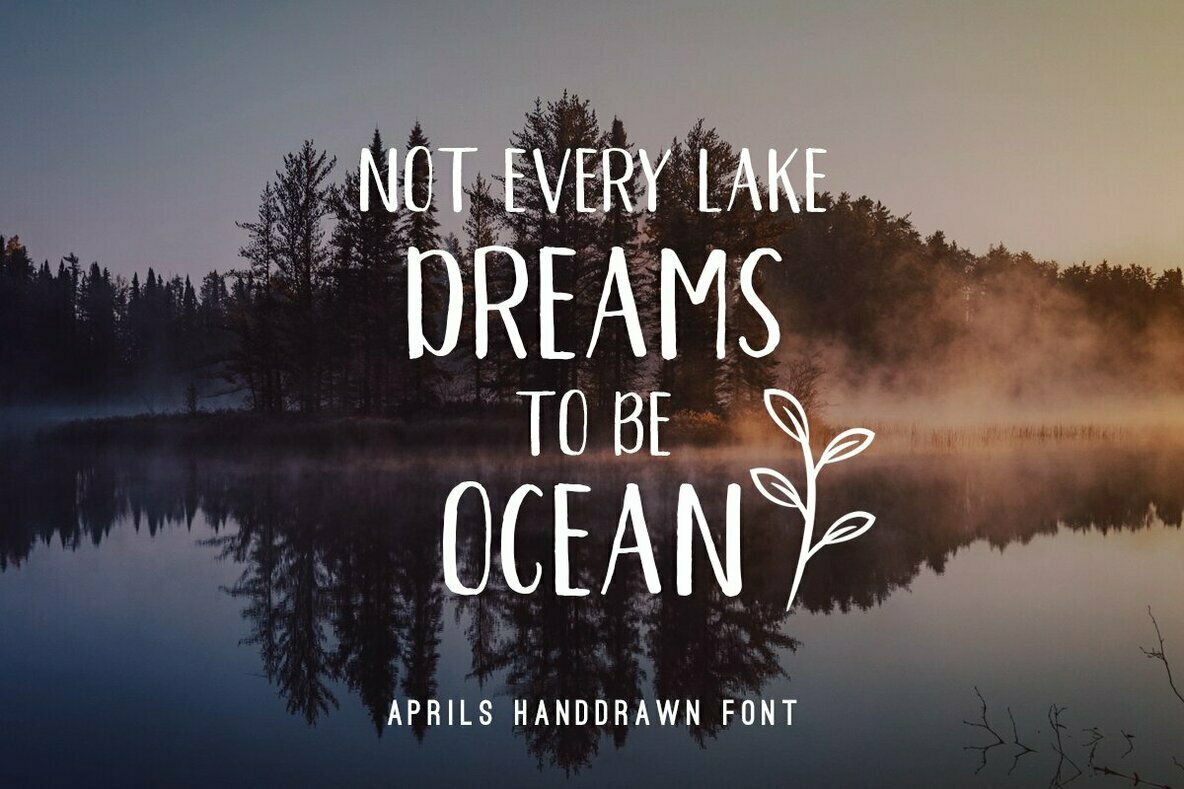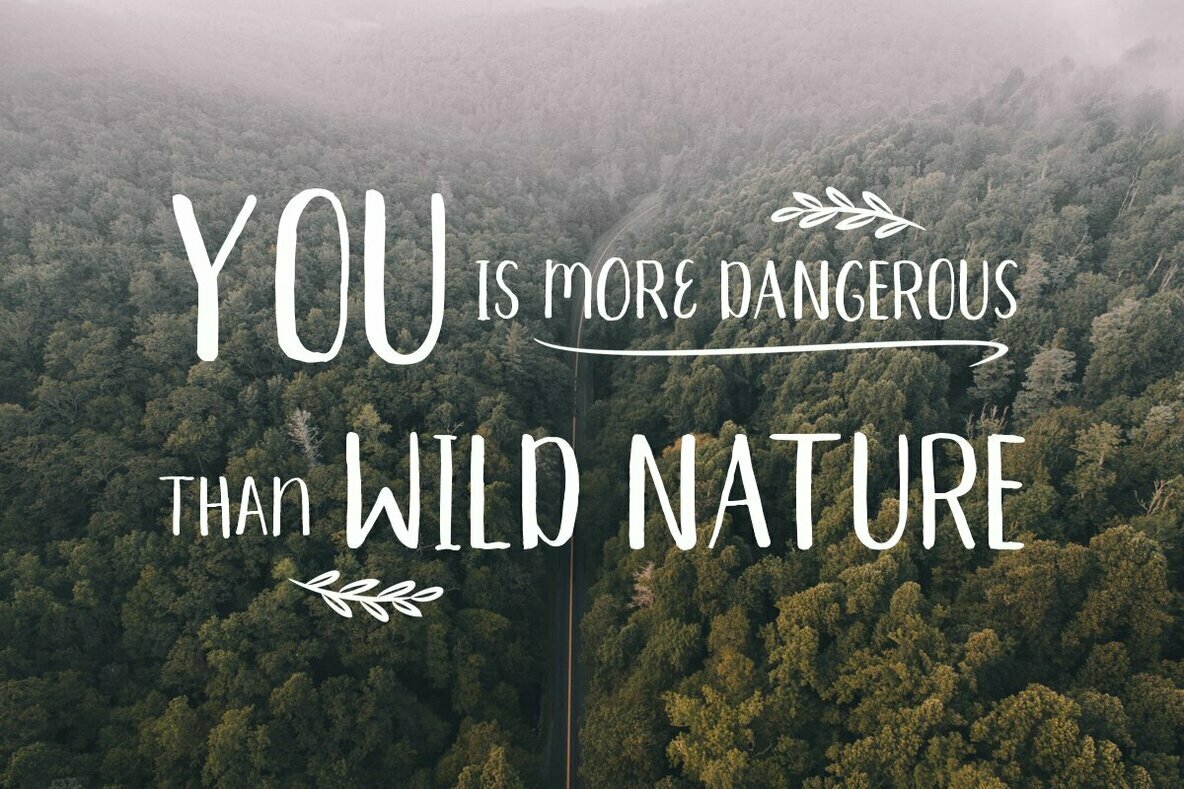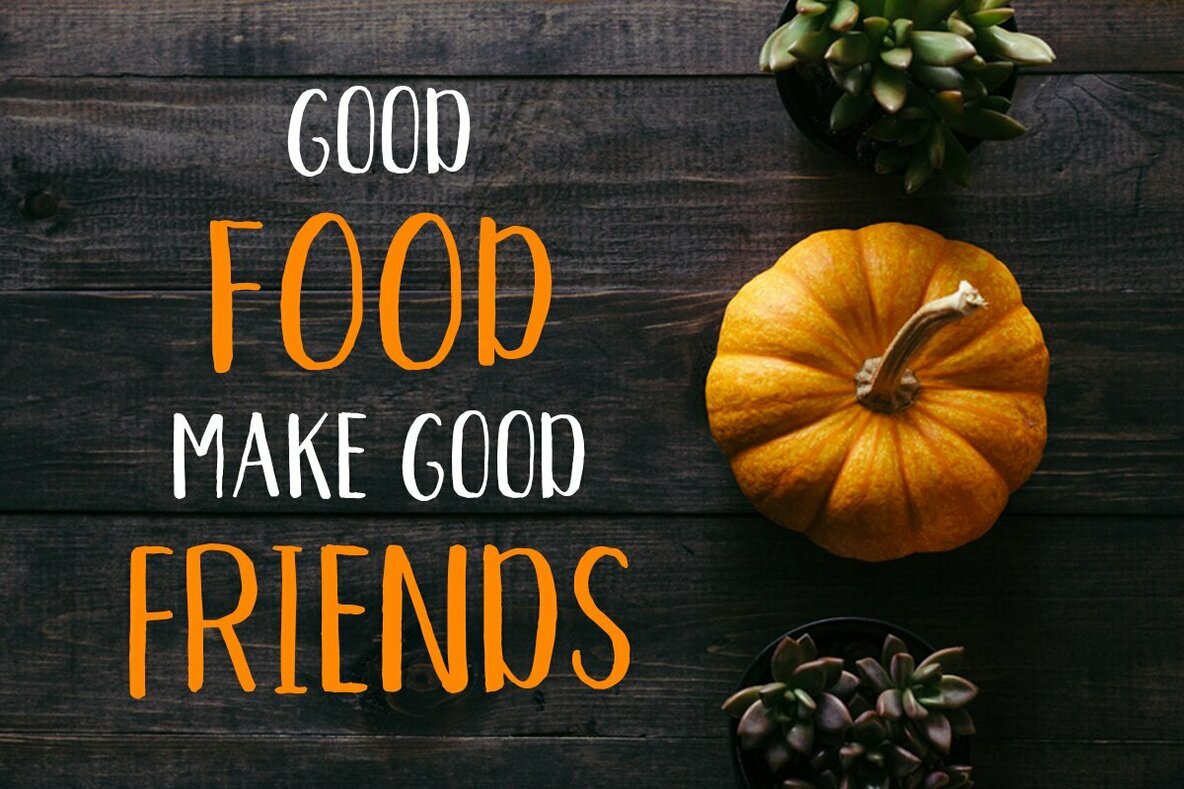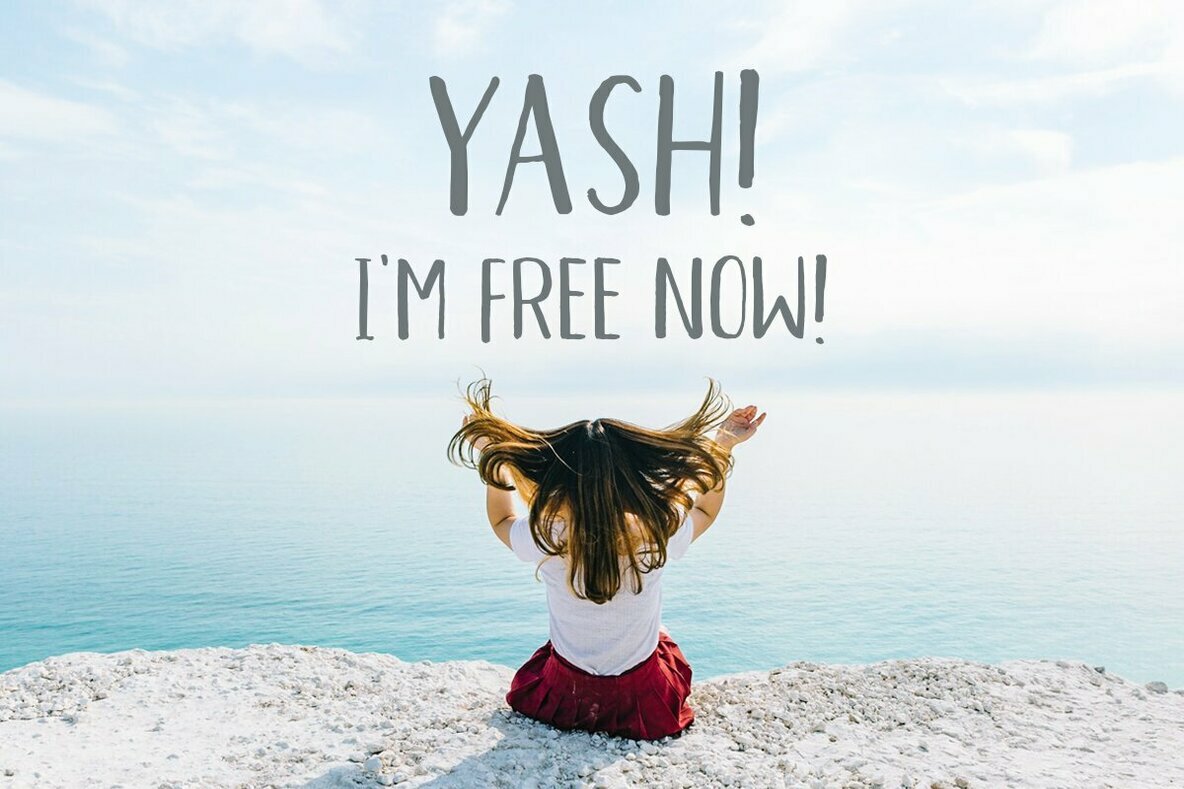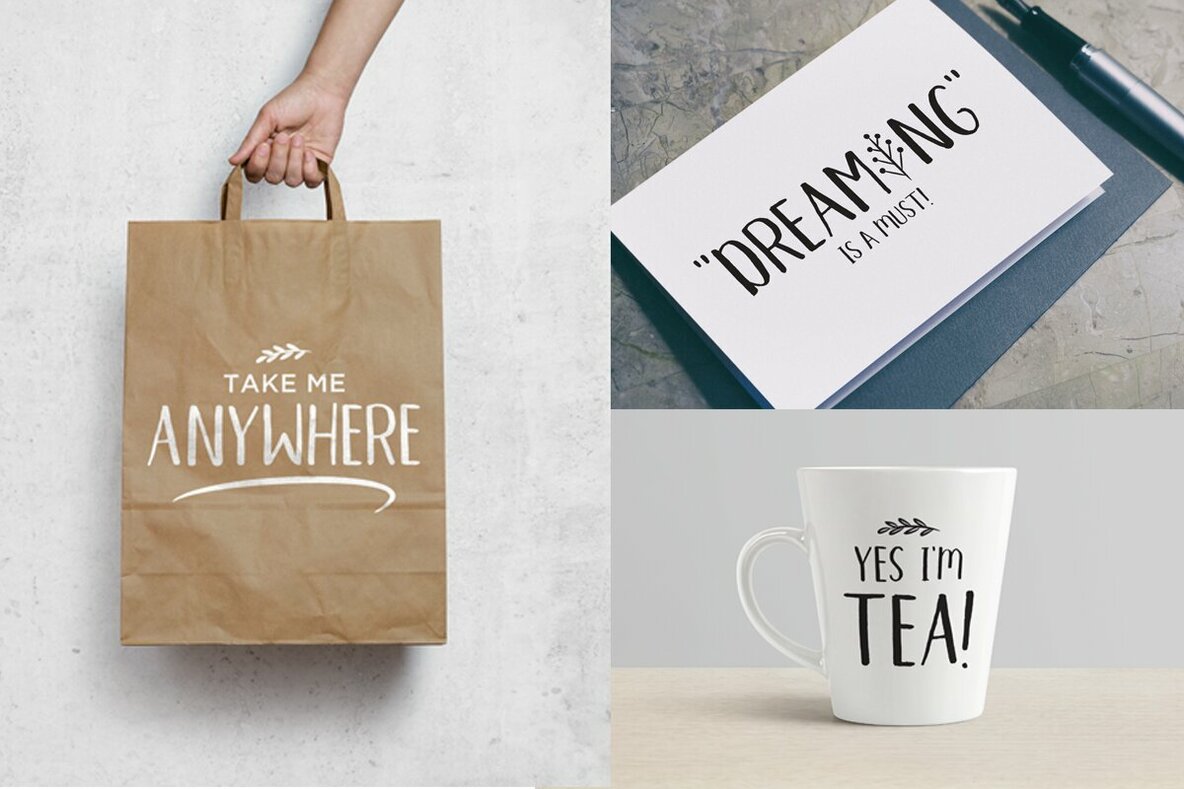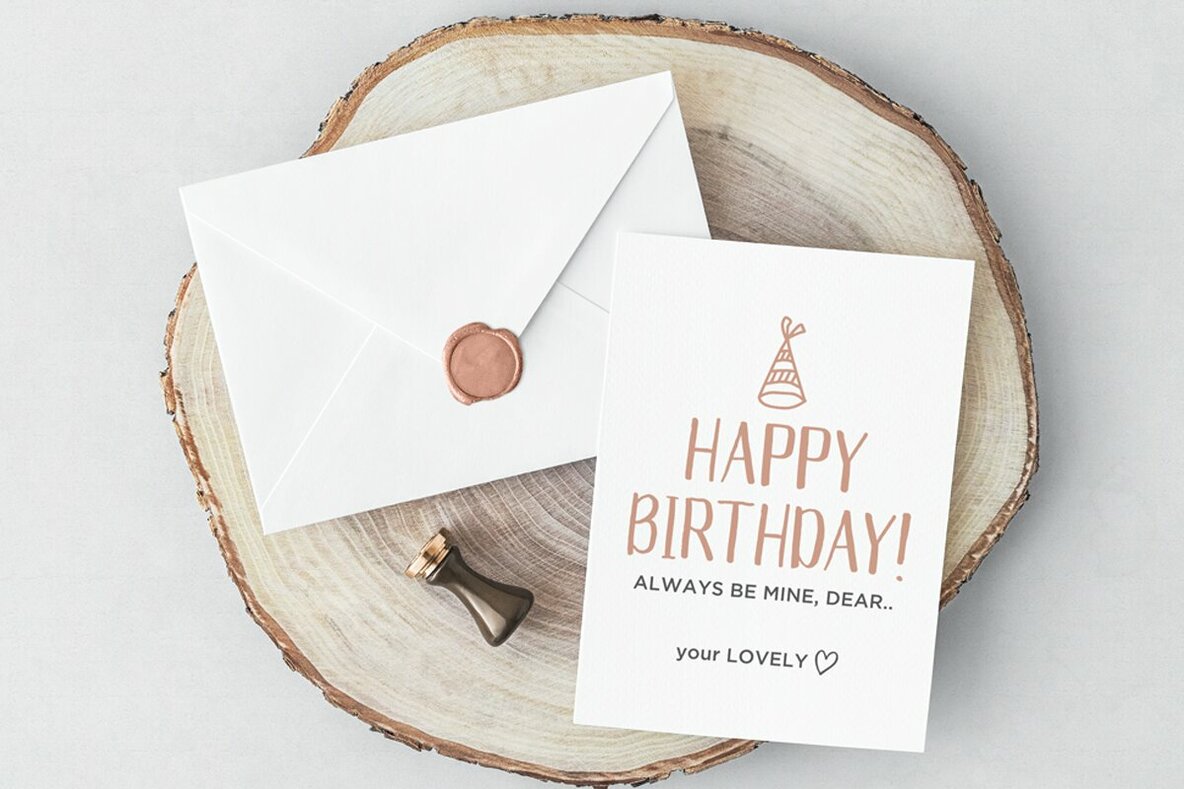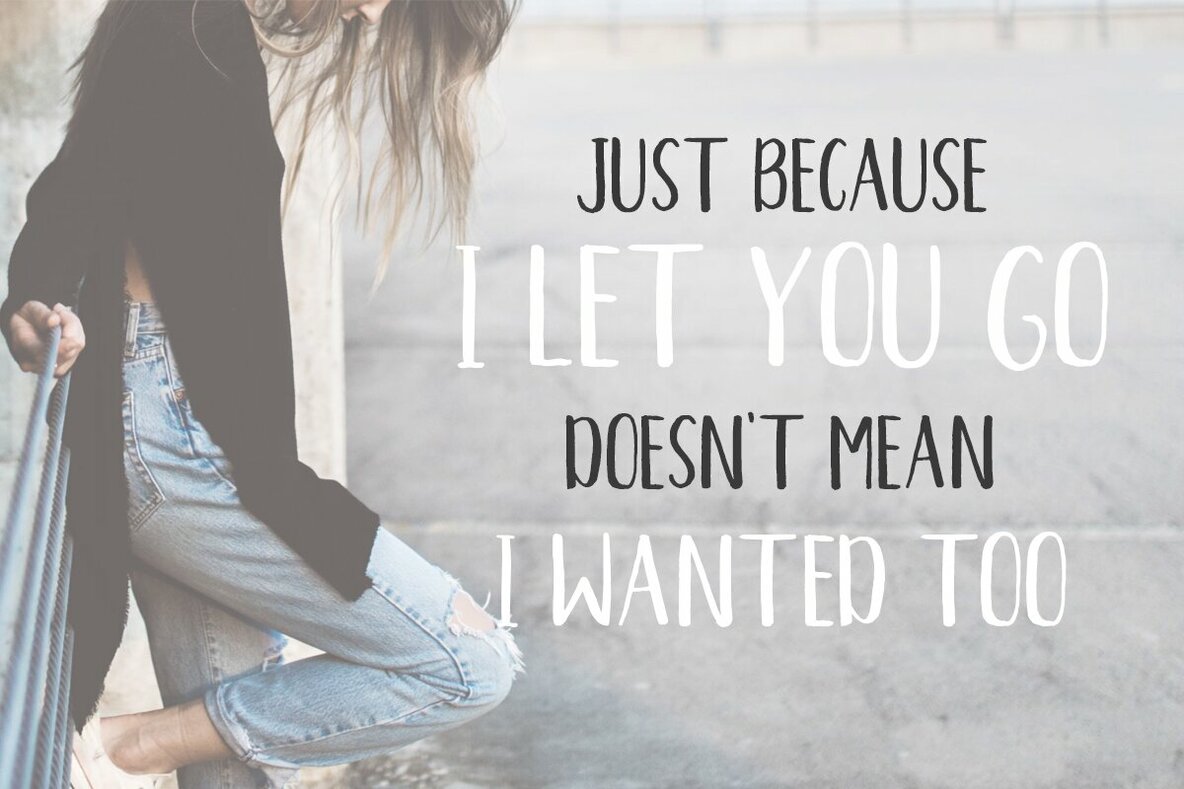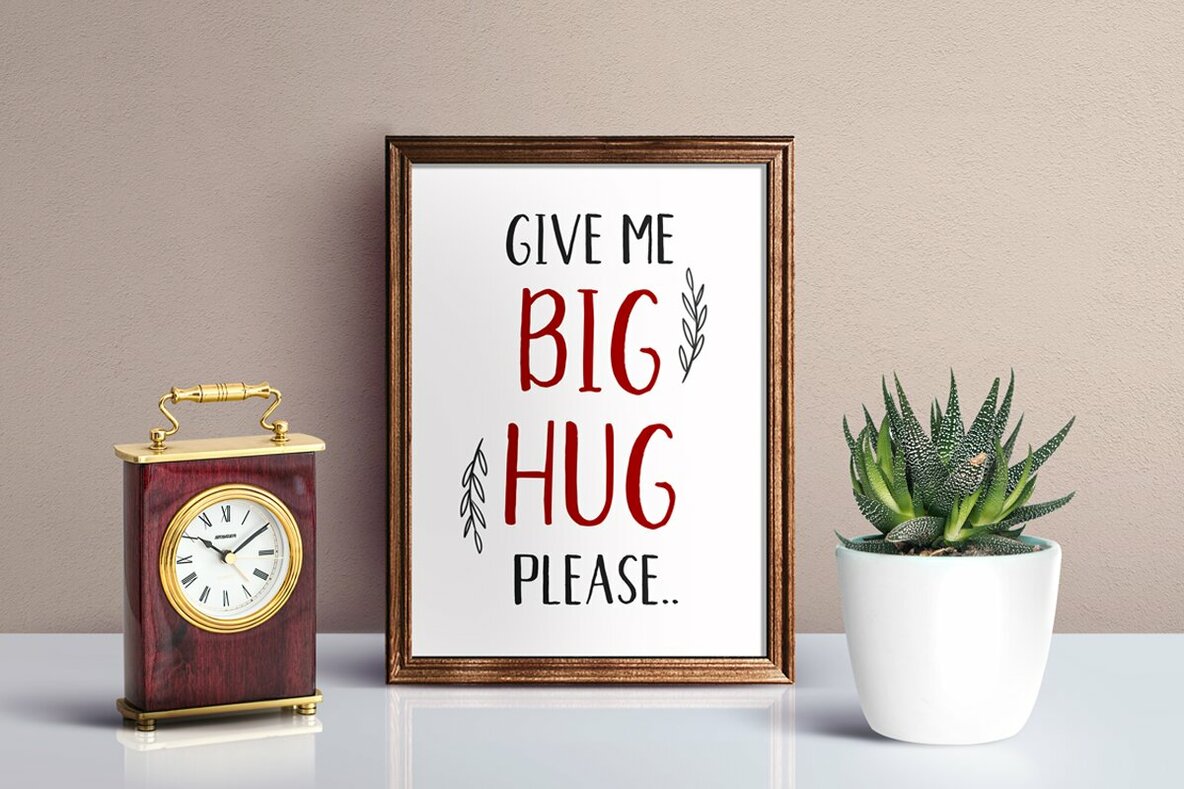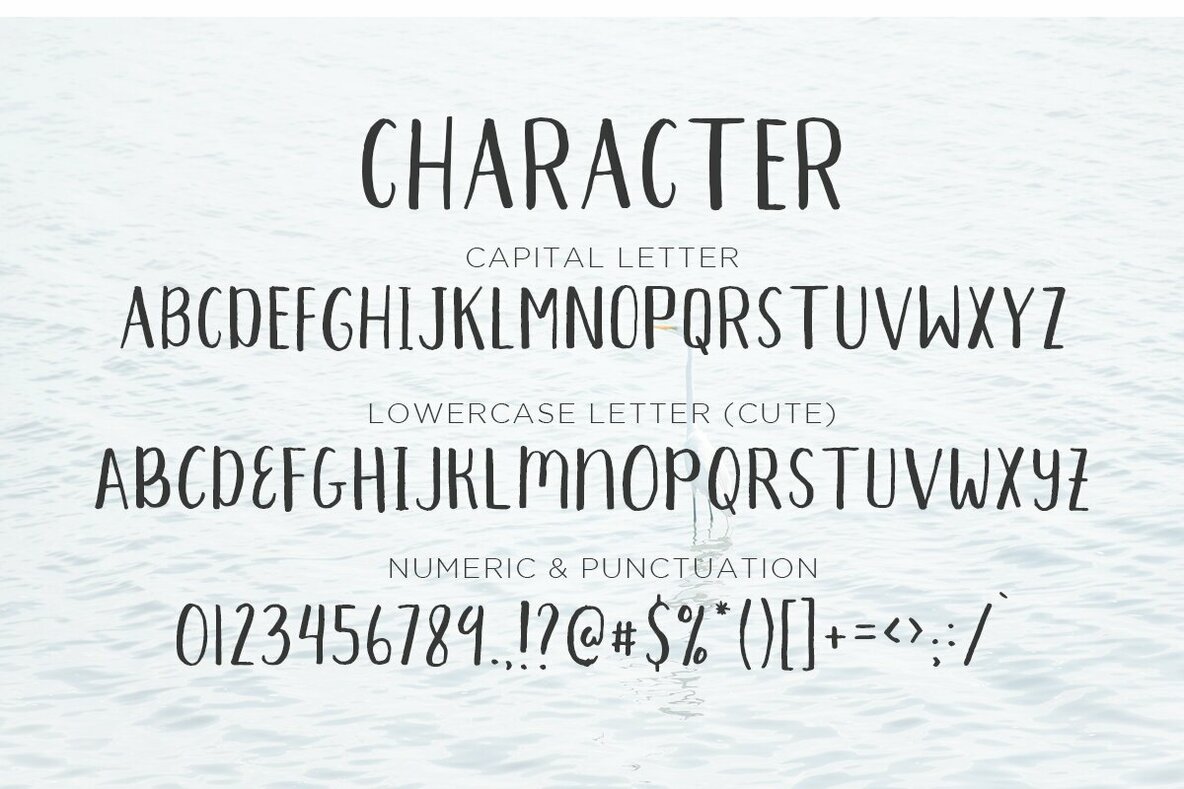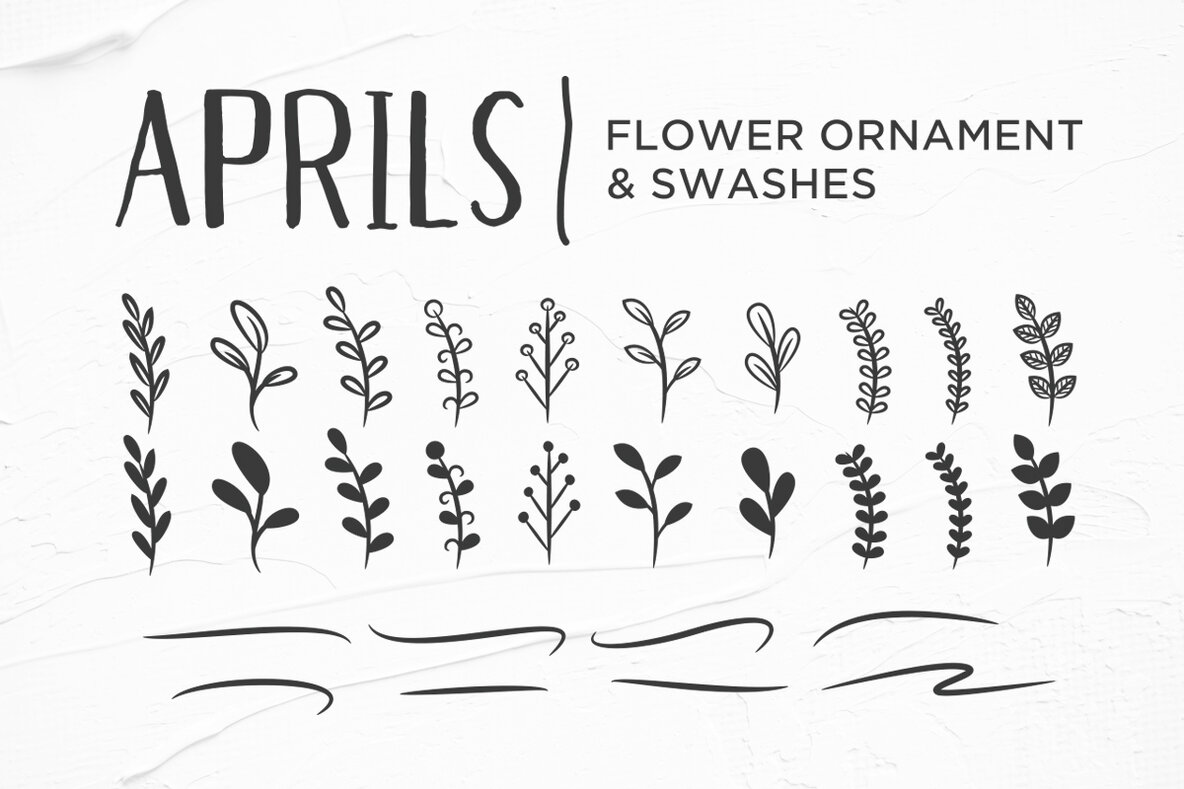
Aprils Font
Aprils Handdrawn Font
Aprils is a super fun, hand-drawn font that comes with Extras leaf ornament and swashes so that your designs can really get that "hand-drawn" feel.
Aprils is unique font, which all letters in all caps, in lowercase letters i make a cute version. This font support multilanguage.